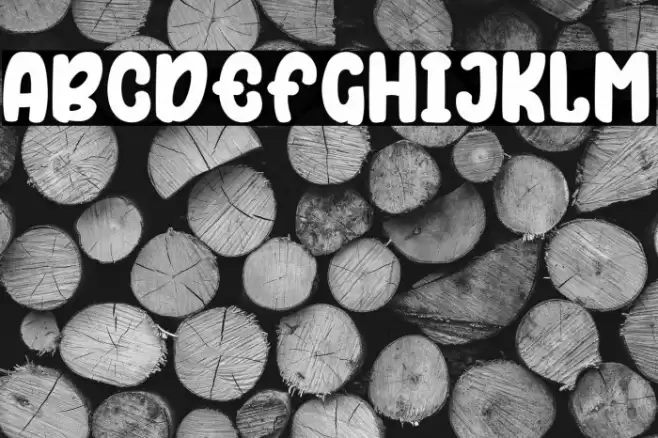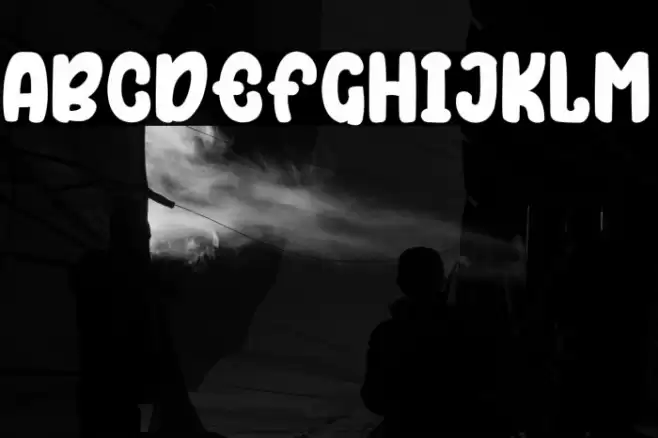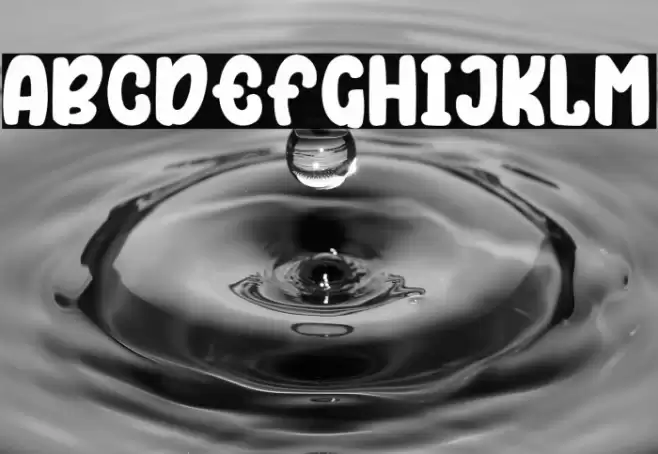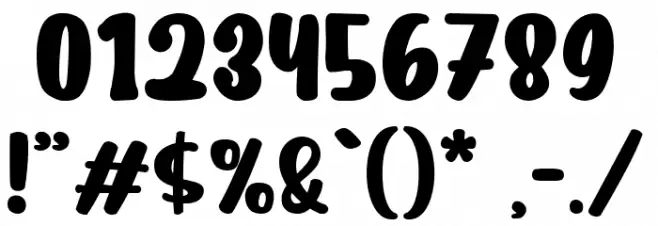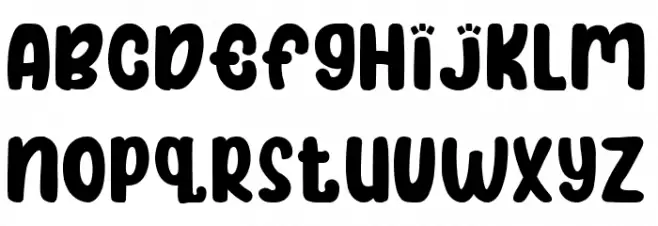
Bubblekids Font
Bubblekids Description
This playful and whimsical font features bold, rounded characters that evoke a sense of fun and creativity. The letters are designed with a bubbly appearance, making them ideal for projects aimed at children or those requiring a lighthearted touch. The uppercase and lowercase letters maintain a consistent style, with some characters incorporating unique elements like small feet on the lowercase 'g'. The numbers and special characters follow the same playful design, ensuring a cohesive look across all text elements.
A playful, bubbly font perfect for children's projects from Uncategorized fonts.
- Overall Style: Playful
Bubblekids UPPERCASE
Bubblekids LOWERCASE
Bubblekids OTHER CHARS